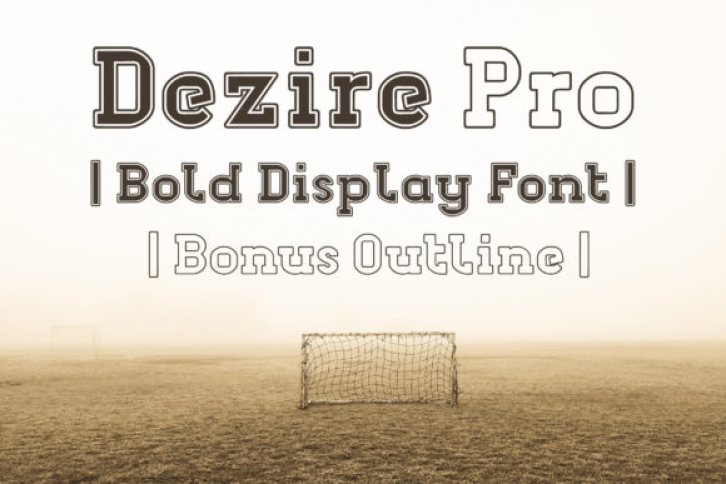
The Dezire Pro is an brand new serif family. It includes 3 versions and perfectly fits for corporate branding, fashion designs, brand titles, sport related designs, and much more!